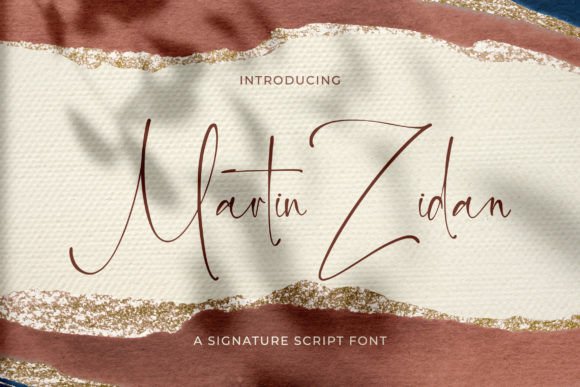
Discover Martin Zidan Font, a Handcrafted Masterpiece for a Touch of Elegance
Step into the world of exquisite typography and unveil Martin Zidan Font, a breathtaking script font that captures the essence of artistry and sophistication. This meticulously designed font family is an ode to beauty and elegance, crafted with the utmost care and attention to detail by StringLabs, a renowned foundry known for their exceptional work in the realm of fonts.
Martin Zidan Font is a delicate dance of lines, curves, and flourishes, a true masterpiece that will transform your creative projects into captivating works of art. Its characters are perfectly balanced, striking a harmonious equilibrium between legibility and aesthetic appeal. Whether you're a seasoned designer or just starting your typographic journey, Martin Zidan Font will guide you effortlessly, enhancing your designs with a touch of magic.
Explore Endless Creative Possibilities with Martin Zidan Font
With Martin Zidan Font, the possibilities are boundless. Unleash your imagination and watch as your designs come alive with a unique, personal touch. The font's inherent versatility lends itself effortlessly to a myriad of creative endeavors, from eye-catching logos and branding elements to stunning invitations, wedding stationery, and social media graphics that leave a lasting impression.
Embrace the Art of Script Tattoos with Martin Zidan Font
For those with a passion for self-expression through body art, Martin Zidan Font presents an unparalleled opportunity to create truly exceptional script tattoos. Its flowing lines and graceful curves will seamlessly blend with the contours of your skin, transforming words and phrases into meaningful, artistic masterpieces. Whether you're a tattoo artist seeking to elevate your craft or a creative individual looking to design your own meaningful body art, Martin Zidan Font will guide you in creating timeless pieces that carry deep personal significance.
Experience the Allure of Martin Zidan Font:
• Delicate and Elegant: Martin Zidan Font exudes an aura of grace and refinement, adding a touch of sophistication to any design project.
• Well-Balanced Characters: Each character is carefully crafted to ensure optimal legibility, ensuring that your message is conveyed with clarity and impact.
• Wide Range of Applications: From logos and branding to invitations and social media graphics, Martin Zidan Font effortlessly adapts to diverse creative needs.
• Perfect for Script Tattoos: Its flowing lines and graceful curves make Martin Zidan Font an ideal choice for creating meaningful and visually stunning script tattoos.
• StringLabs Quality: Created by StringLabs, a renowned font foundry known for their exceptional craftsmanship, Martin Zidan Font embodies the highest standards of quality.